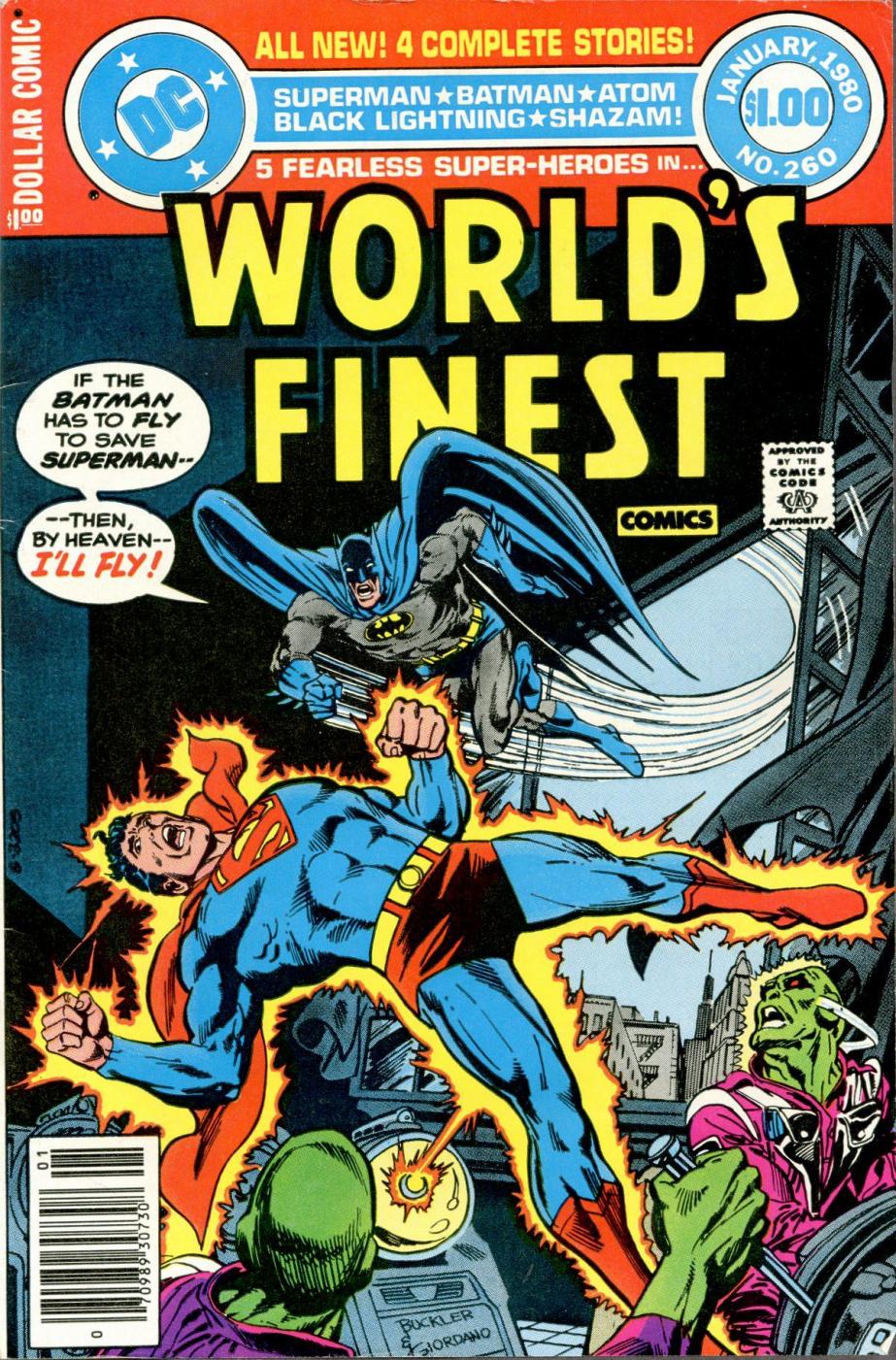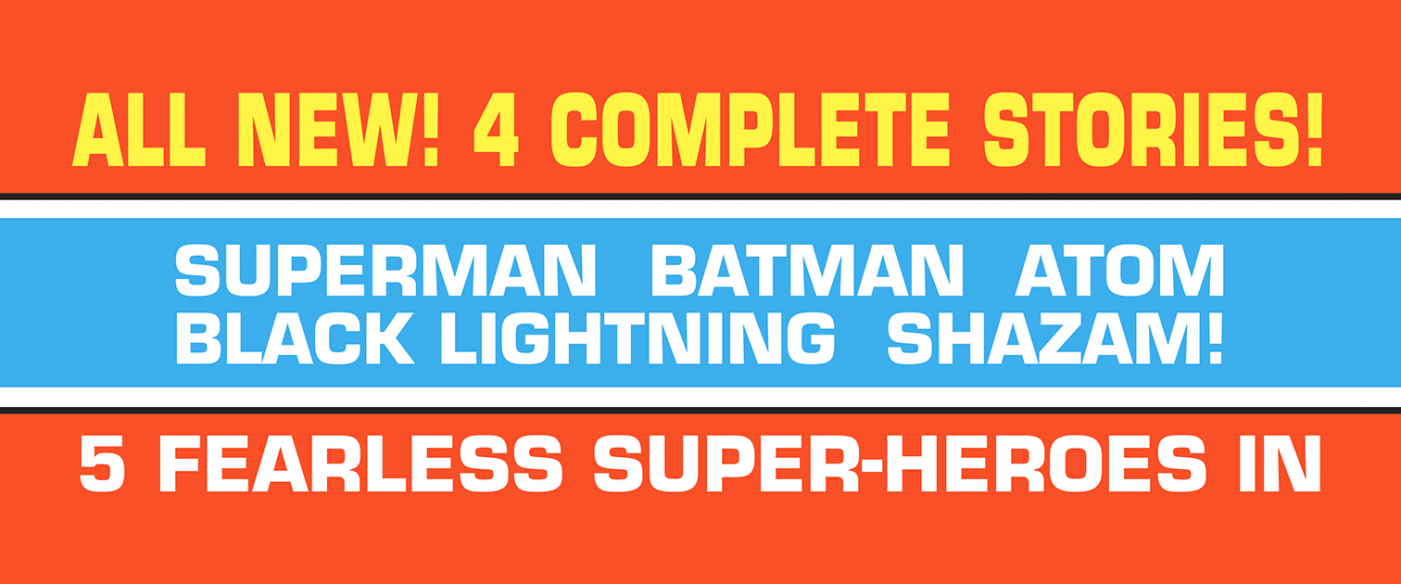
1970’s-1980’s DC Comics Font
I feel like I should know this but - can anyone identify the font used on this 1980 DC Comics cover?  The text that reads “4 COMPLETE STORIES” and “SUPERMAN BATMAN...etc”?  Would love to find a free matching font if possible. Thanks in advance!
Eurostile or Microgramma ?
Given that there isn’t a condensed width of Microgramma, it’s either Eurostile and Microgramma, or Eurostile and Eurostile Extended.
🙂 I believe it is Microgramma. When I  saw the cover the first one I thought about was Eurostile, but there were something in the N the M and the G that were not right on, and Microgramma, from those years, is right on I think.
I spoke to a professional comic book letterer. He told me these fonts were created by a Vari-Typer machine (if anyone knows what that is). Looks like some form of Microgramma to me too. Thanks for the feedback!
Ok.  The "ALL NEW" "4 COMPLETE STORIES" does not appear to be either Microgramma or Eurostile.  Any other ideas??
Well, I guess it's the same font, just squished somehow.  Didn't think the typesetting machine was capable of that...
So I’ve been using Microgramma Bold Ext in Illustrator, and no matter how I tweak it, I can’t get it to match the cover. Still seems like the wrong font.
You need to use the extended version and squish it a lot horizontally. That’s why the stroke widths are kind of terrible. You will also have to add the corner rounding manually and adjust the kerning. As mentioned before, this is almost certainly phototypesetting and no digital font will exactly match that.
Not having Microgramma Bold (No Extended) I have used my Eurostile Bold (No extended).
I have only “touched” the first line, it’s squished at 69% and with a thin stroke to make it a little bolder. Not exact exact but…
That looks pretty good!  I can get it close, but I’m being anal. I think I need the Microgramma that is just bold - not extended. Also, I’m doing mine in black and white. I own the original art for the cover and am making replacement “stats”.
I've done some testing in InDesign using Eurostile Bold and find that to match the top line, if I set it at 25 point, tracking 25, vertically 110%, horizontally 70% and selective kerning in two or three places -- I have an almost perfect match.